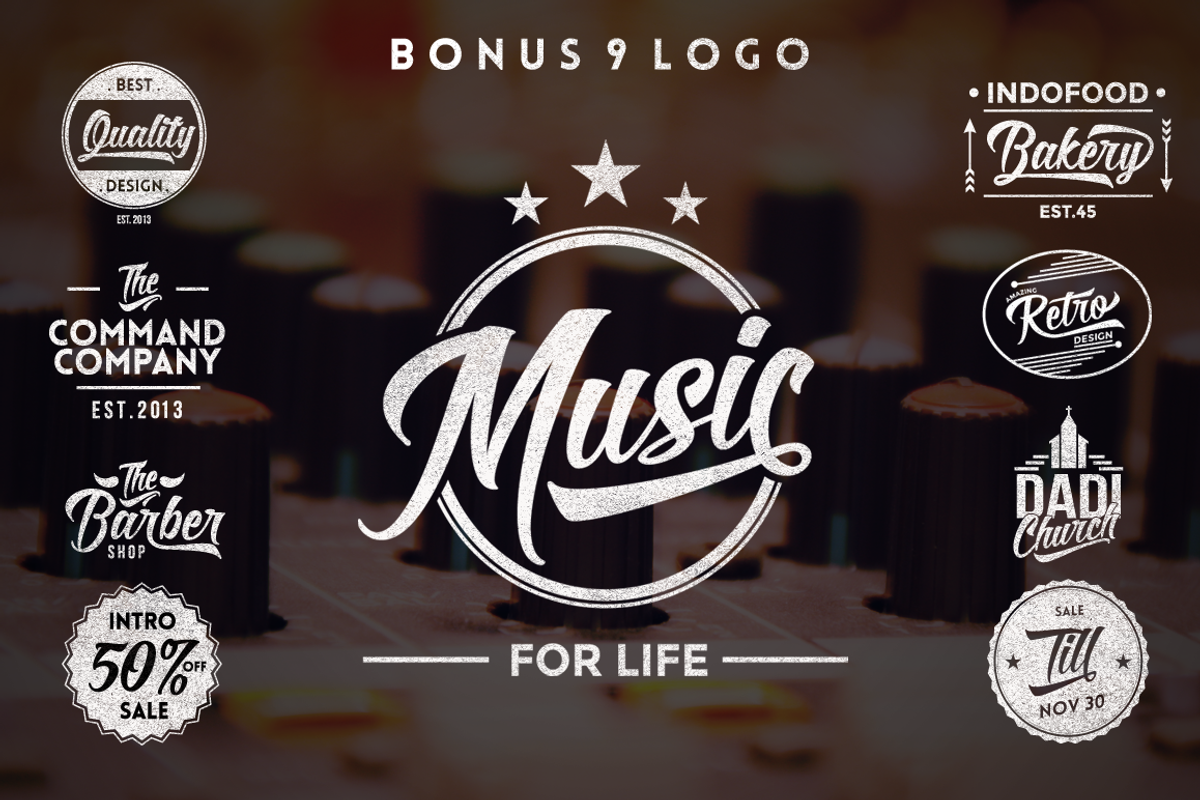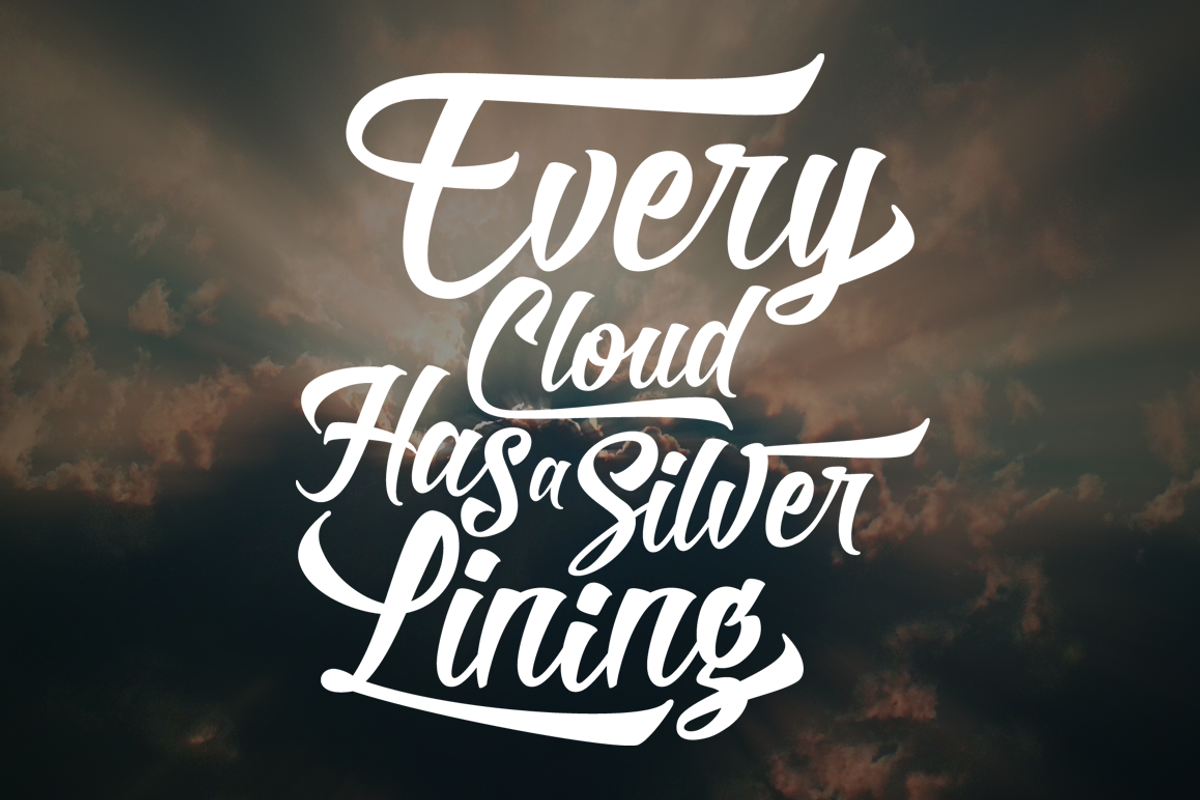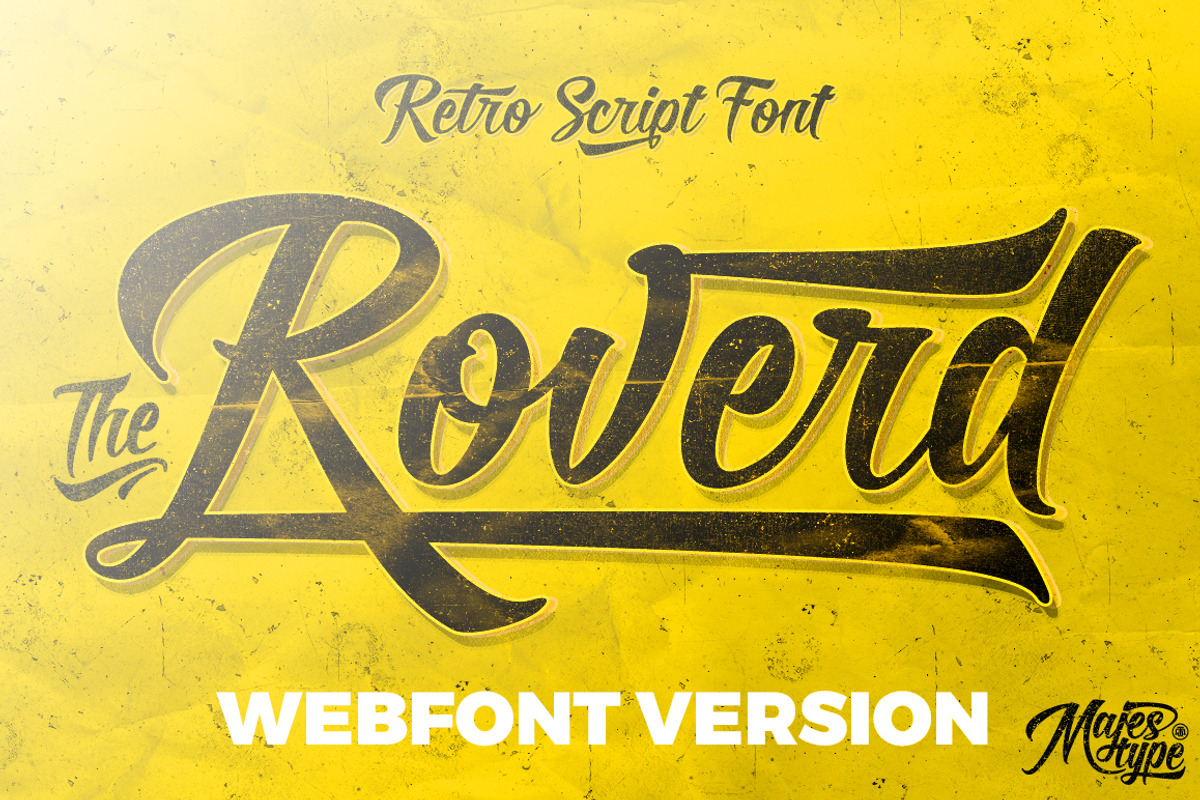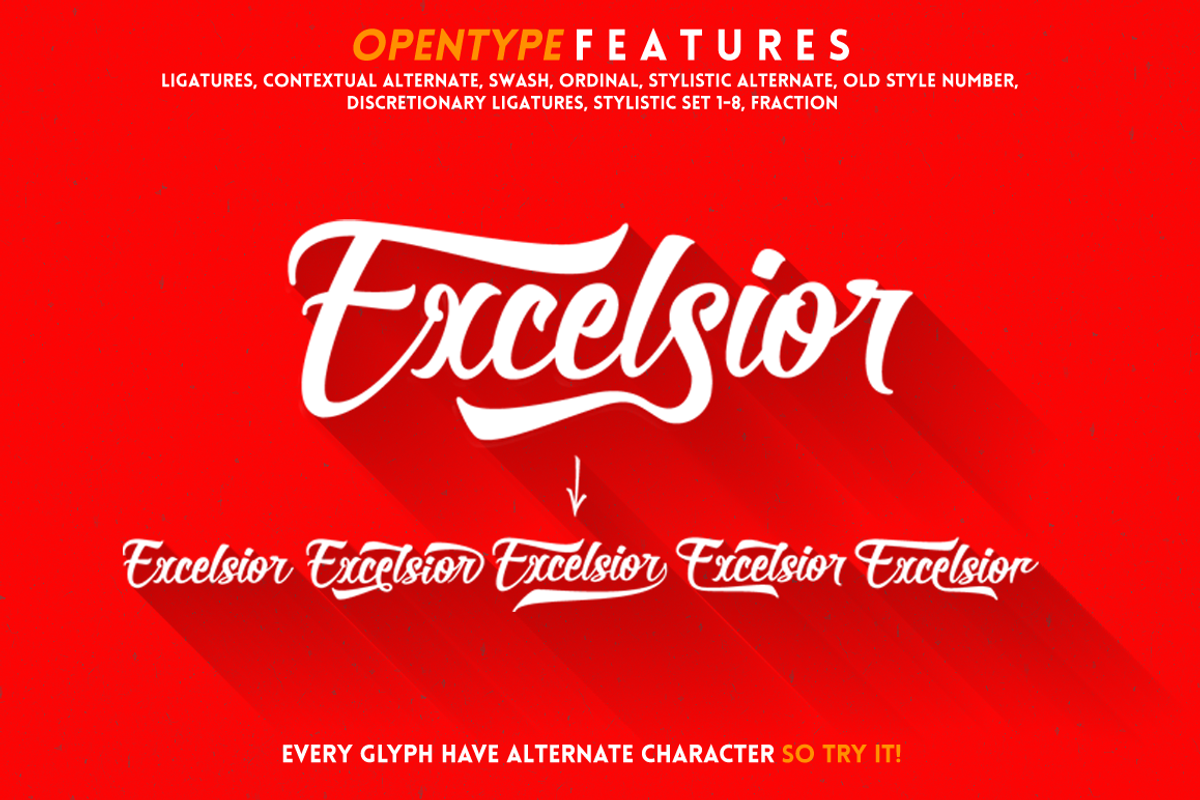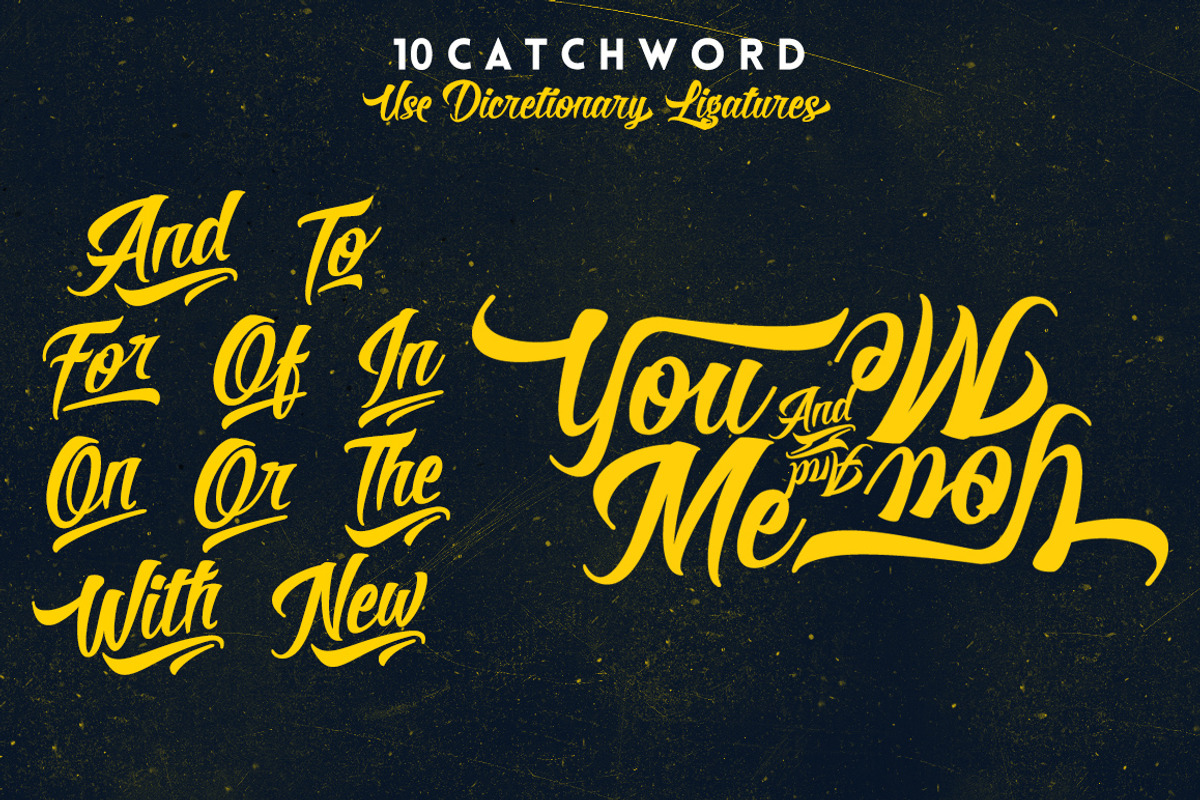
ROVERD WEBFONT VERSION + DESKTOP
Roverd is a cool retro script font that comes packed with 700 glyphs and OpenType features, perfect for adding that extra bit of custom style to your designs. Its versatile and unique look makes it a great choice whether you're working on a t-shirt design, a logo, or a poster.
Note that each glyph has an alternate character, so try experimenting to find the one that works best for your design. You can also use discretionary ligatures to show catchwords, or check out the five alternate "Ampersand and Underscore" styles in Stylistic Alternate and Stylistic Set 1-5. The font is available in both OTF and TTF formats, and as a bonus, you'll get nine logos that use this font.